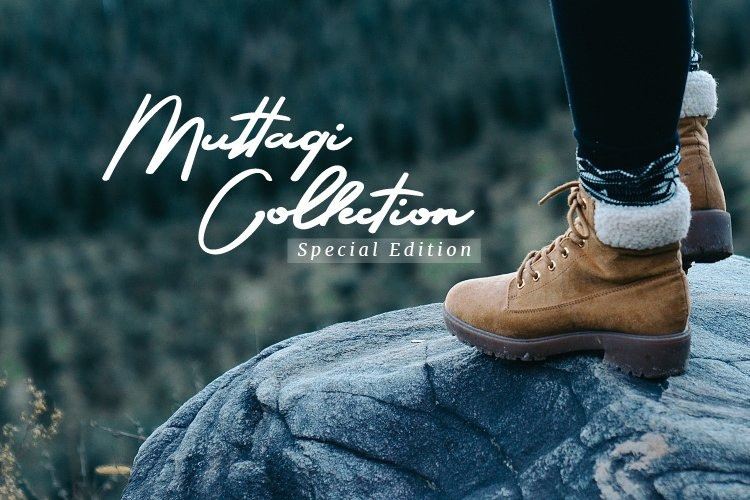
Retrow Mentho Script Font
Retrow Mentho is a great handwritten font, carefully handcrafted to become a true favorite. Its casual charm makes it appear wonderfully down-to-earth, readable and, ultimately, incredibly versatile. Retrow Mentho will look outstanding in any context, whether it’s being used on busy backgrounds or as a standalone headline!